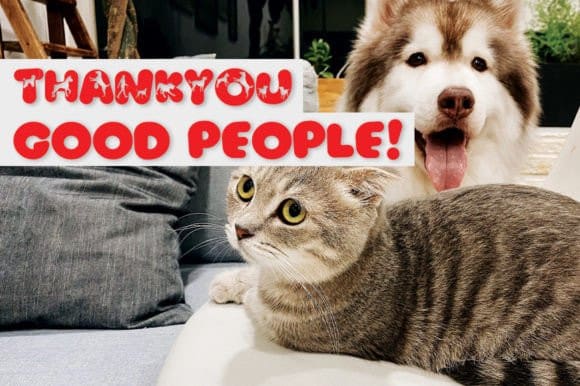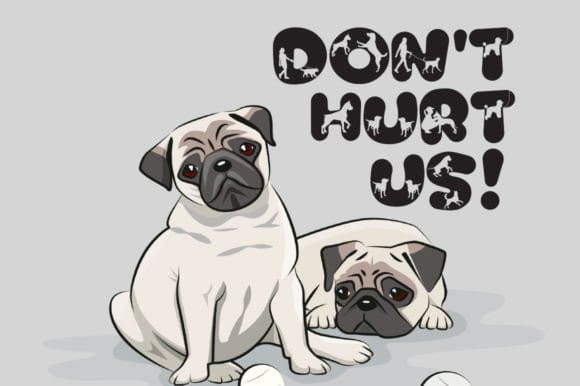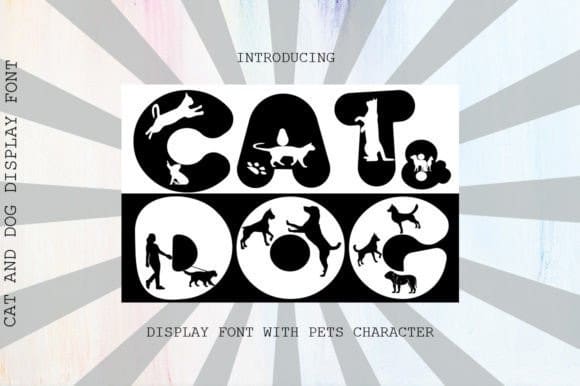
Cat And Dog Font
Cat and Dog Font is a bold yet whimsical display font with pet characters that will brighten up each of your designs. Add it confidently to your design or your font library, and you will love the results. This font is perfect for vintage and retro designs, badges, logos, t-shirts, posters, book covers, and so much more!